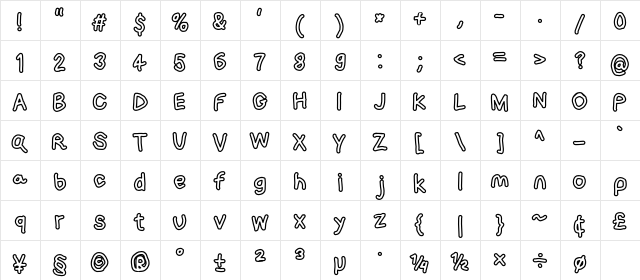
Loogie Hawk Otl
Design Context for Loogie Hawk Typeface
Loogie Hawk is a composed and adaptable typeface that performs quietly and consistently across a wide range of design contexts.